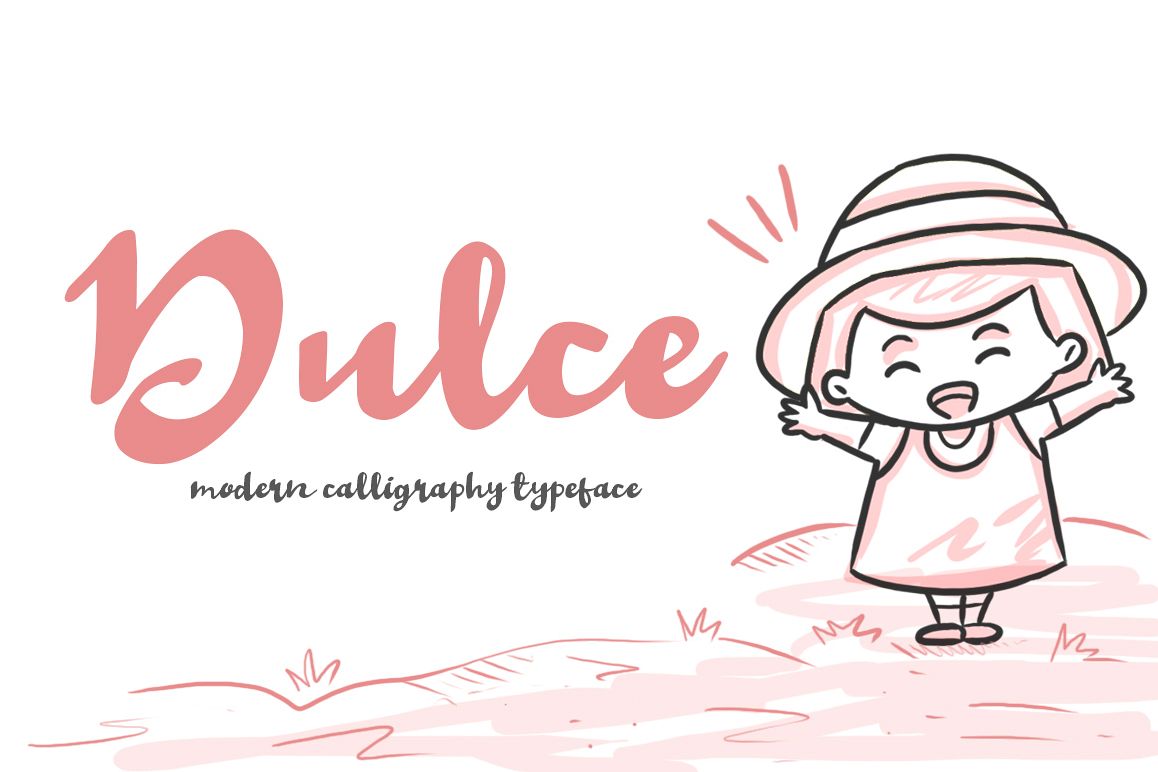
Dulce Script Typeface - a new fresh handmade calligraphy font. Dulce script perfect using for wedding invitation, event, card, display, logo, greeting card, and more!